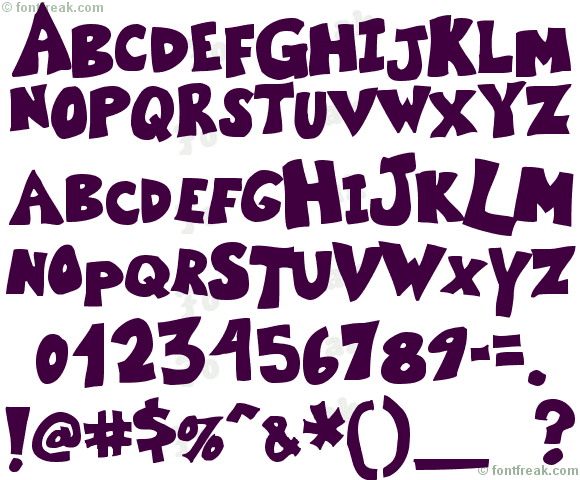
Kartoone Solid
Kartoone
About Kartoone Solid
Kartoone Solid, designed by Stanley Roland Frantz in 1998, is a playful display font that encapsulates a sense of whimsy and creativity. This font falls under the category of decorative typefaces, characterized by its bold, chunky letterforms that exhibit a solid and unified appearance. The stroke weight is consistent, lending the typeface a robust and eye-catching quality, while the lack of sharp angles gives it a friendly and approachable feel.
Visually, Kartoone Solid features rounded edges and a slight irregularity in its letter shapes, which enhances its playful nature. The spacing between characters is generous, ensuring legibility while maintaining a fun aesthetic. This font also incorporates subtle decorative elements, such as exaggerated curves and a slightly hand-drawn look, which contribute to its unique charm.
Kartoone Solid is perfect for a variety of creative applications. It shines in contexts like children's book covers, where its playful design can attract young readers. Additionally, it serves well in promotional materials for events like birthday parties or festivals, where a lively and energetic vibe is desired. Its bold presence makes it a great choice for restaurant menus that aim to convey a casual and fun dining experience. Graphic designers and small business owners will find this typeface particularly useful for branding that seeks to connect with a youthful or family-oriented audience.